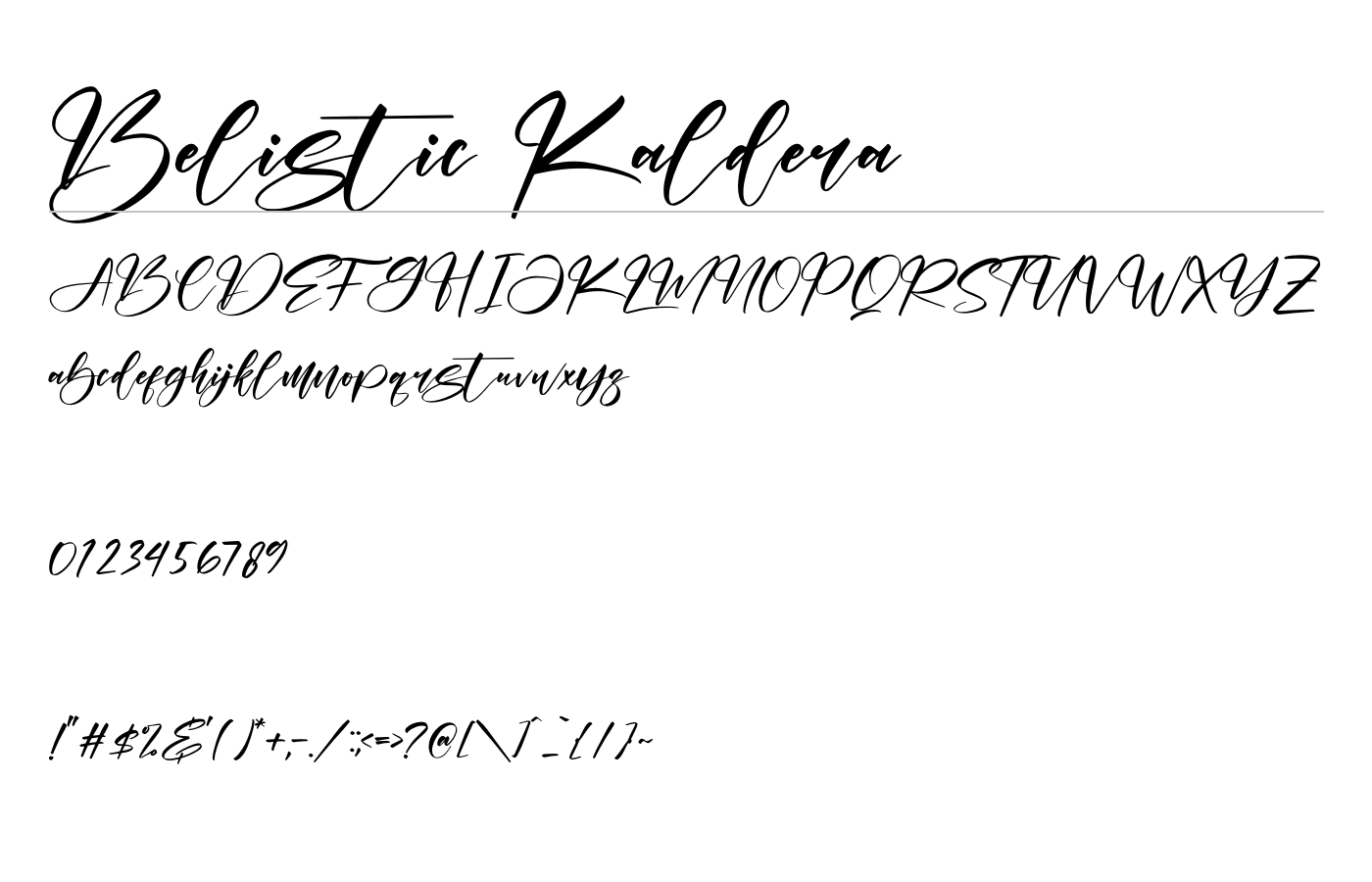
Belistic Kaldera is an elegant, modern script font characterized by its flowing, handwritten style with fine, smooth strokes that give it a graceful and delicate appearance. Its tall, slender letterforms with varied stroke widths create a sophisticated yet playful feel, making it perfect for luxury branding, wedding invitations, and stylish editorial designs where a personal, artistic touch is desired. This font shines in headlines, logos, and decorative text that aim to communicate elegance and creativity.
Belistic Kaldera Font